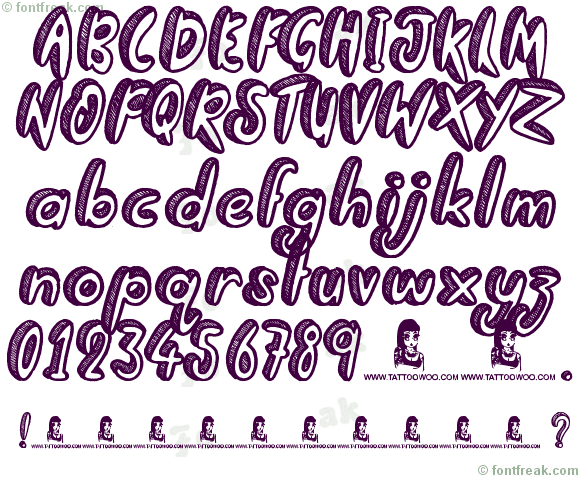
Going Rogue
About Going Rogue
The Going Rogue font, designed by Jonathan S. Harris, falls into the decorative category, showcasing a playful and whimsical style. This typeface features a unique, hand-drawn aesthetic that captures the essence of casual elegance. The stroke weight varies throughout the characters, creating an inviting and organic feel. With its moderate contrast and rounded forms, Going Rogue offers a relaxed vibe that is both approachable and visually engaging. The spacing between letters is well-balanced, enhancing readability while maintaining its artistic flair.
Going Rogue is ideal for a variety of creative applications. It shines in wedding invitations, where its charming personality can convey love and celebration. This font also works beautifully for movie posters, adding a fun and dynamic element that can attract attention. Restaurant menus can benefit from its lively design, making the dining experience feel more inviting and memorable. Additionally, this typeface is perfect for branding projects aimed at small businesses, particularly those in creative industries like crafts, fashion, or lifestyle. Content creators looking to add a touch of personality to their digital or print materials will find this font a valuable asset.
Targeted towards graphic designers, small business owners, and content creators, the Going Rogue font is a versatile option that can elevate various design projects. Its unique character and artistic appeal make it a standout choice for anyone looking to infuse a sense of creativity and individuality into their work. For those interested in exploring this distinctive typeface, a Going Rogue font free download is available, allowing you to incorporate its charm into your next design endeavor. With its combination of playfulness and elegance, Going Rogue sets itself apart as a truly remarkable font.